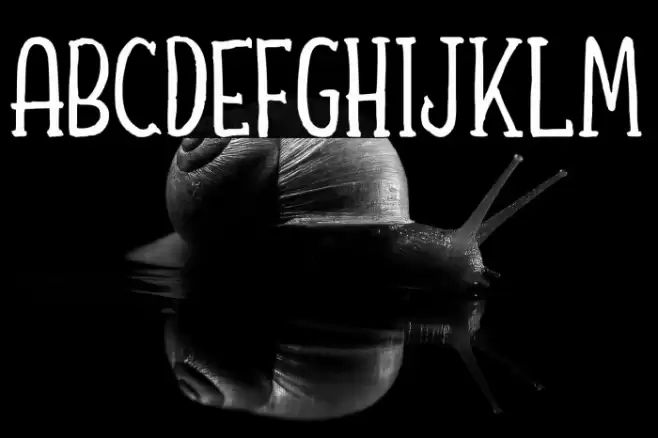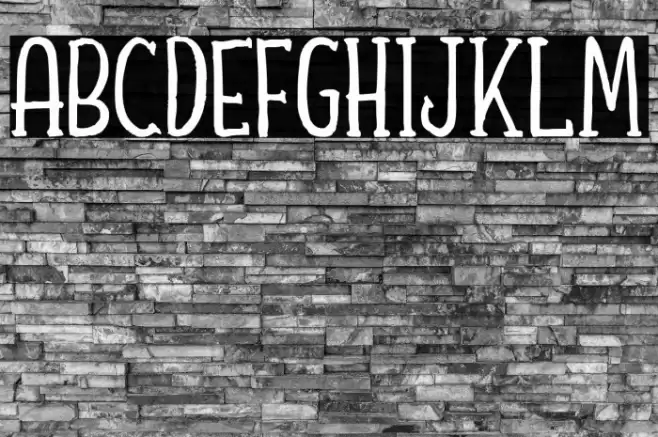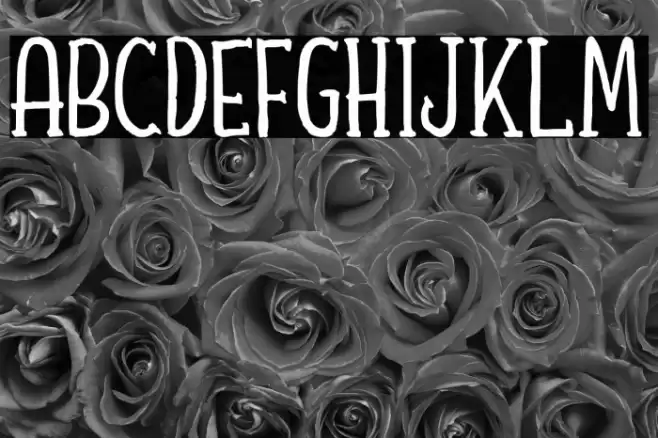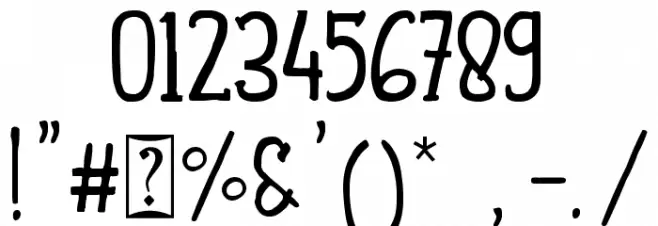
Shafeer Descript Demo Font
Shafeer Descript Demo Description
This font features a playful and slightly whimsical style, characterized by its hand-drawn appearance. The letters have a casual, informal feel, with uneven strokes and slight variations in line thickness that add to its charm. The uppercase and lowercase letters maintain a consistent style, with rounded edges and a slightly condensed form. The numbers and special characters follow the same aesthetic, ensuring a cohesive look across all glyphs. This font is well-suited for projects that require a friendly and approachable tone.
A playful, hand-drawn font with a whimsical and informal style from Uncategorized fonts.
- Font: Shafeer Descript Demo
- Proposed Projects: Ideal for children's books, greeting cards, playful branding, and casual invitations.
- Use Case: Headlines, Logos, Casual text